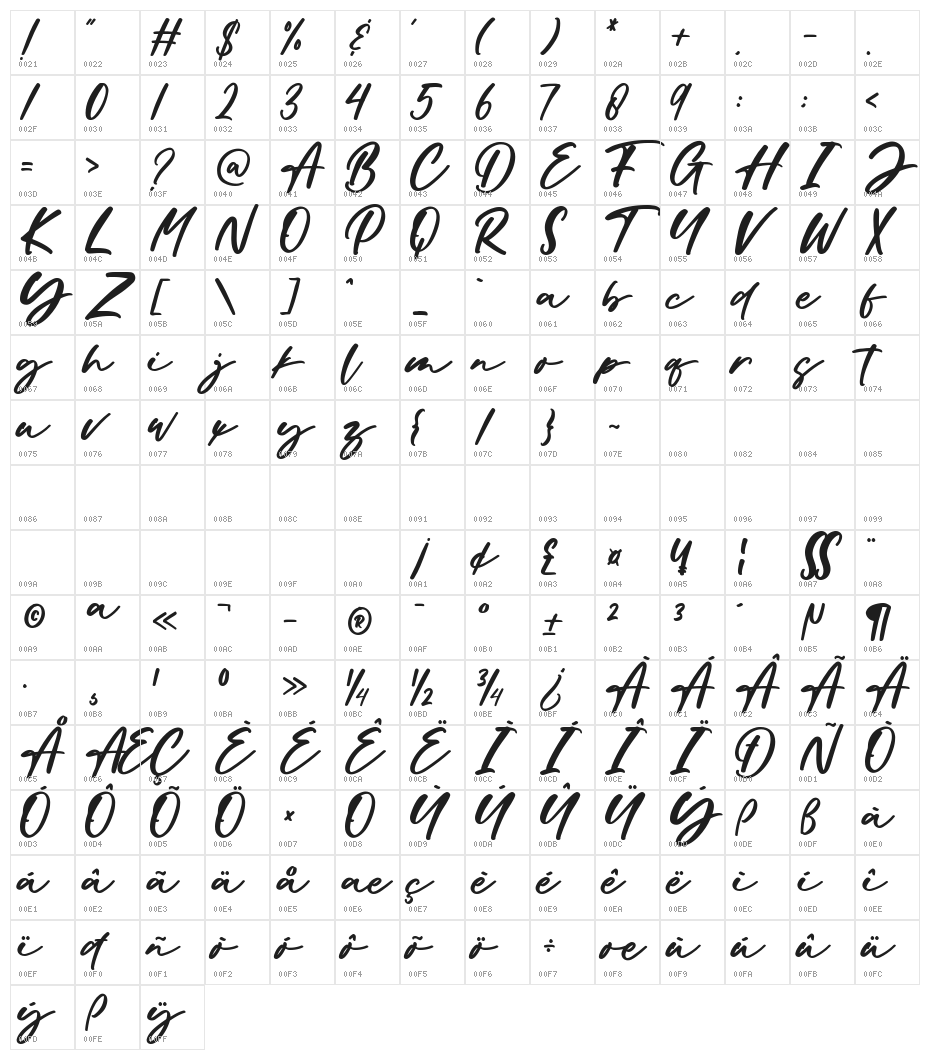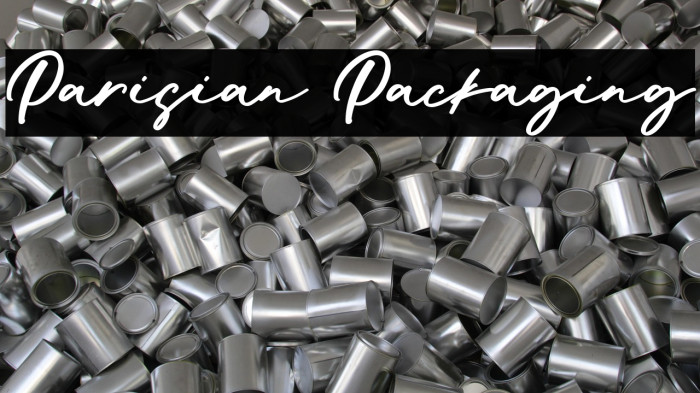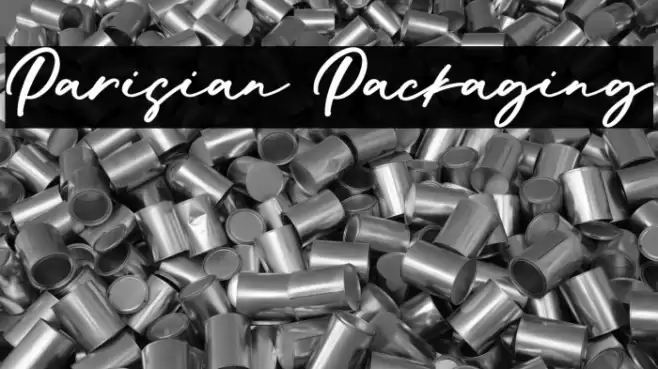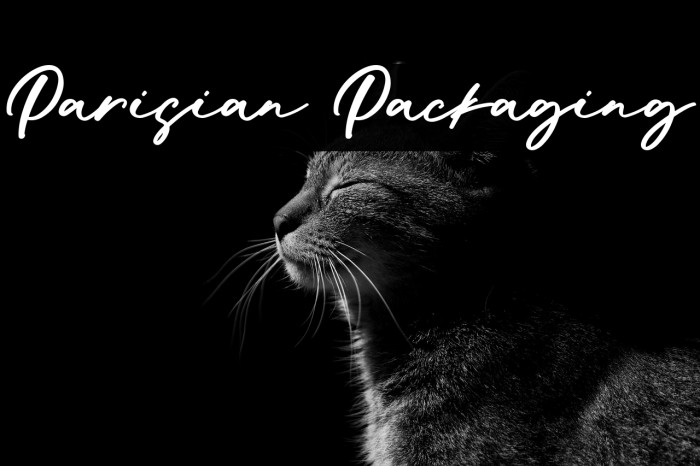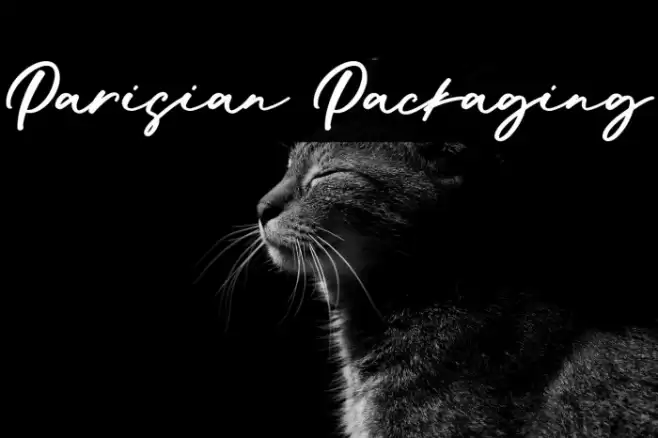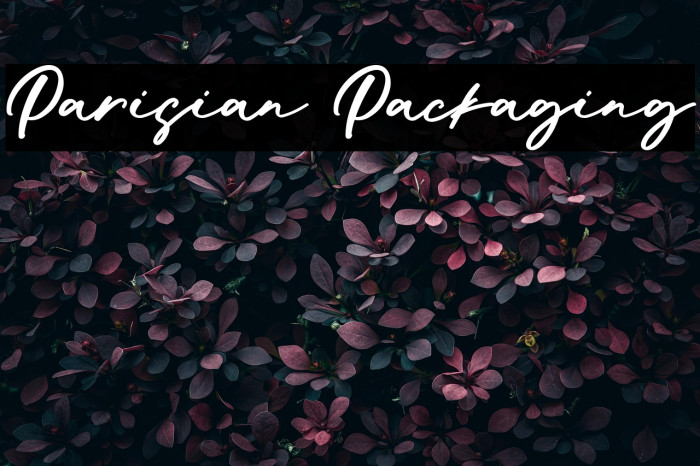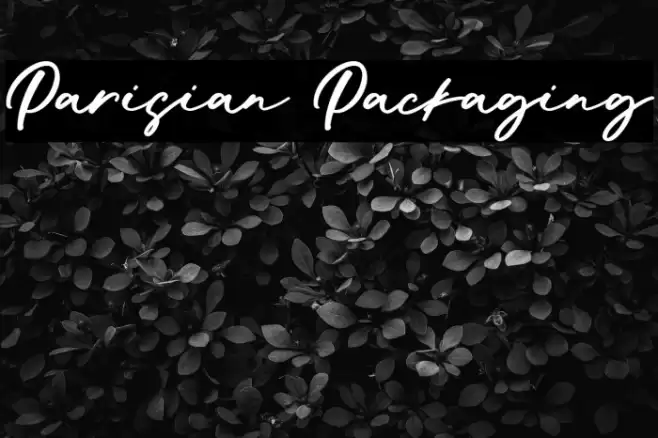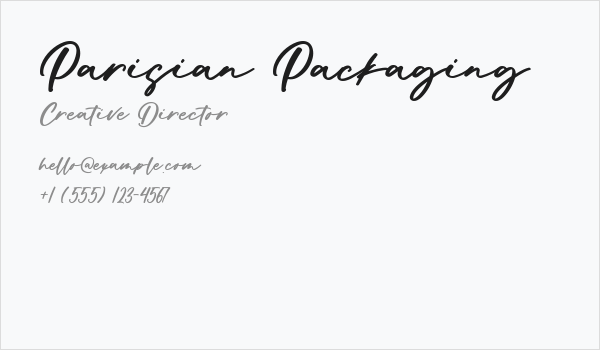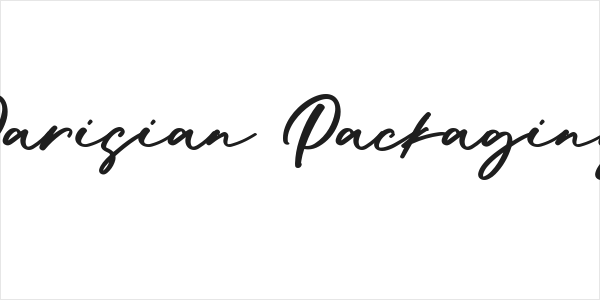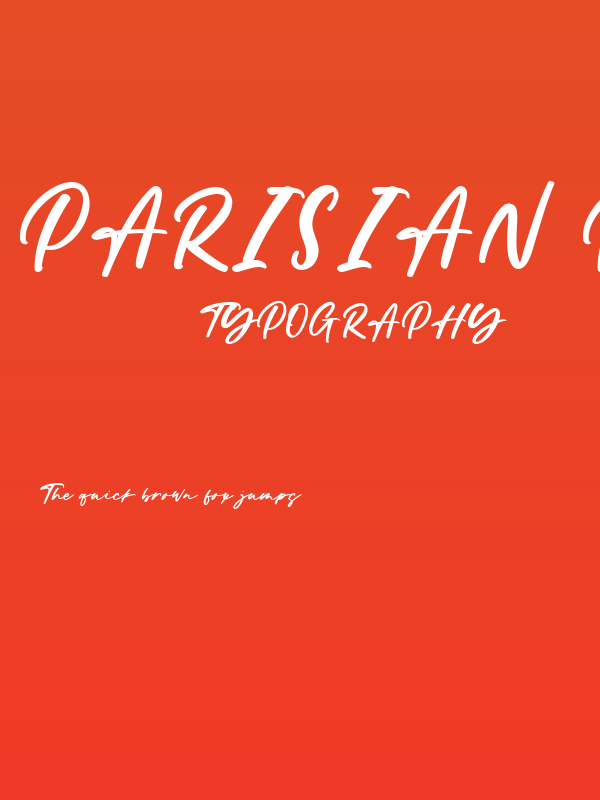
Parisian Packaging Font
Parisian Packaging Description
This font exudes a dynamic and expressive style, characterized by its fluid, cursive script that mimics the natural flow of handwriting. The uppercase letters are bold and slightly slanted, adding a sense of movement and elegance. The lowercase letters maintain a consistent flow, with smooth curves and connections that enhance readability while retaining a personal touch. The numerals are robust and clear, matching the overall boldness of the alphabet. Special characters are creatively integrated, maintaining the font's cohesive style. This font is ideal for projects that require a personal, yet sophisticated touch, such as invitations, branding, and packaging.
| Proposed Projects | Ideal for invitations, branding, packaging, and any project requiring a personal touch. |